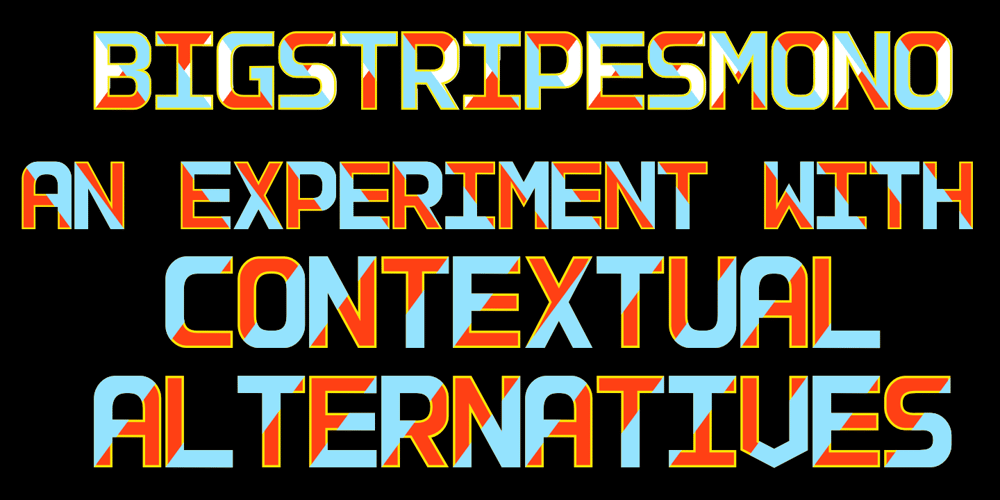
Big Stripes Mono
Big Stripes Mono font
Big Stripes Mono Font Family was designed by Robert Schenk and published by Ingrimayne Type. Big Stripes Mono contains 4 styles and family package options. BigStripesMono is another typeface family from IngrimayneType that explores the possibilities of alternating letters sets. The family is monospaced with four fonts: a base or solid style, an outlined style, and two styles in which each character is cut diagonally and the halves are separated to form two characters. These split styles are not designed to be used alone but layered with the base style, outlined style, or both to form colorful lettering with an unusual striped appearance. The stripe is not apparent in single letters but only in words or lines of text. For best results use an application that supports the OpenType feature Contextual Alternatives (calt) to alternate the letters of the split styles.The four styles can be combined in several ways to create unusual lettering appropriate for titles, headlines, and similar uses. And if one wants a bold, monospaced, sans-serif face, BigStripesMono has that too.